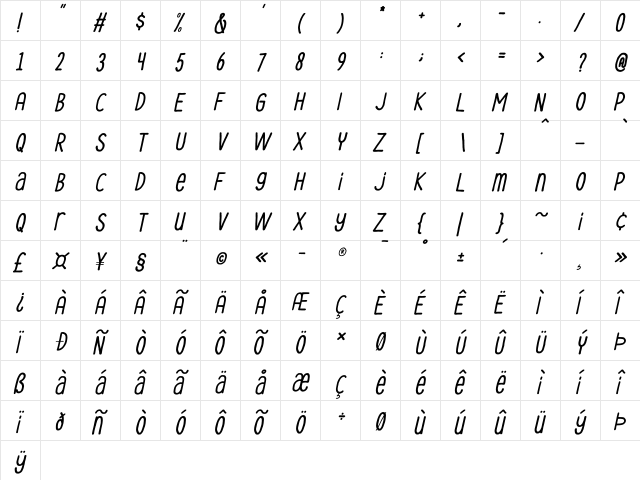
Design Context for Le-Havre-City-Medium-Oblique Typeface
Le-Havre-City-Medium-Oblique takes a measured approach to typography — its balanced proportions and neutral character make it a reliable workhorse for both digital and print work. Its italic angle brings a sense of urgency and motion to the letterforms.
Pro Tip: Try Le-Havre-City-Medium-Oblique for annotation and caption copy alongside an upright companion — the contrast in angle creates a dynamic but ordered typographic system.